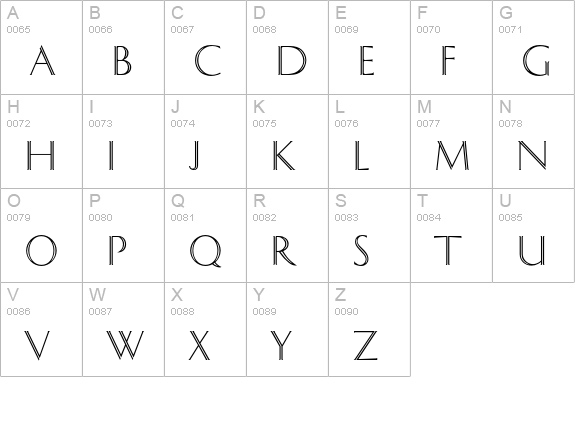
Mykena Font Details
Introducing Mykena font, a stylish and versatile typeface designed to make your projects stand out. With its modern yet elegant design, Mykena is perfect for various creative applications such as branding, logo design, posters, and more. This typeface features clean lines and a sleek aesthetic that will bring a touch of sophistication to any design. Best of all, Mykena font is available for free download at FontsMarket.com. Whether you're a seasoned designer looking for a fresh new font or a beginner exploring typography for the first time, Mykena is a fantastic choice. Download this beautiful typeface today and elevate your design projects to the next level.